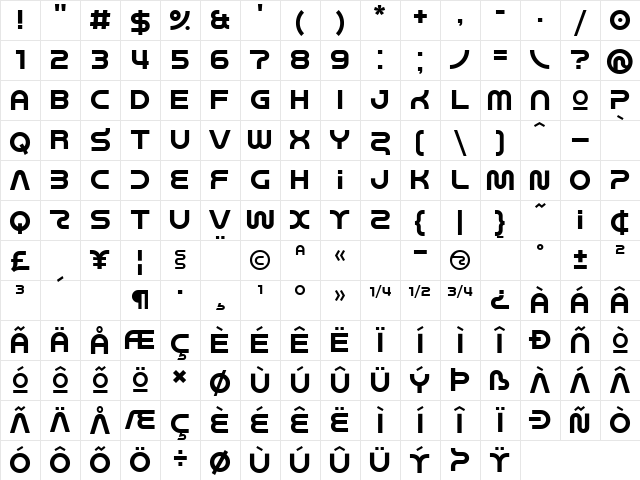
Wagamama Regular
| Foundry | Ryoichi Tsunekawa |
| Designer | Ryoichi Tsunekawa |
Design Context for Wagamama Typeface
Wagamama offers clean, dependable letterforms without strong stylistic allegiance, making it a practical choice for designers who need flexibility.